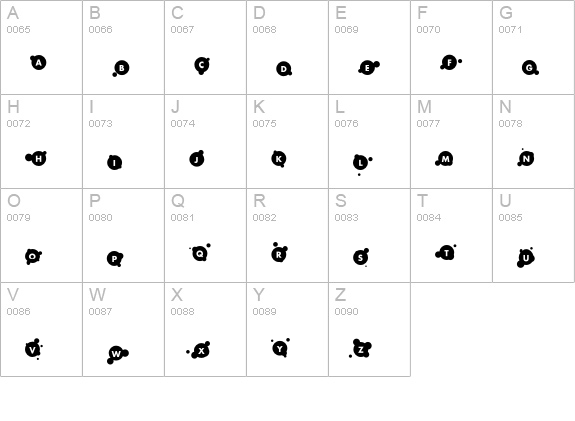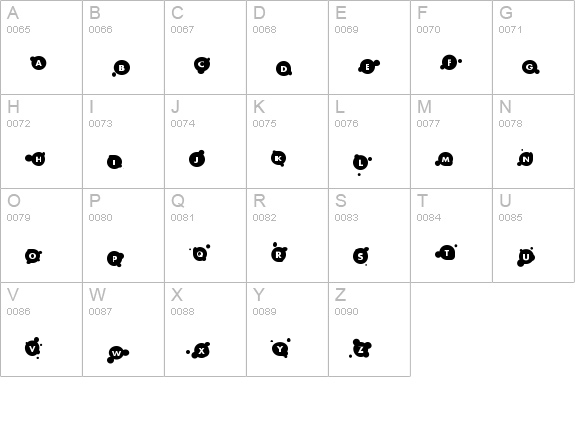
Introducing the whimsical and playful Bubble font, a delightful typeface that will add a touch of fun to your designs! The Bubble font features rounded, bubbly letters that exude a cheerful and lighthearted vibe. Whether you're working on a children's book, a party invitation, or a creative project, this font is sure to bring a smile to your audience's face. Best of all, Bubble font is completely free to download at FontsMarket.com! Simply visit the website and start using this charming font in your projects today. Let your creativity soar with Bubble font and watch your designs come to life with its unique and eye-catching style. Download now and add a pop of fun to your next project!